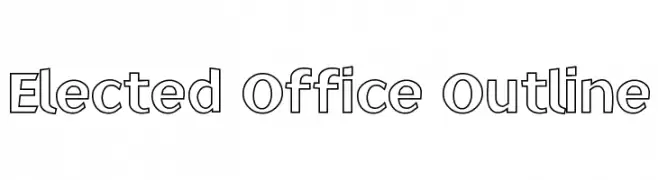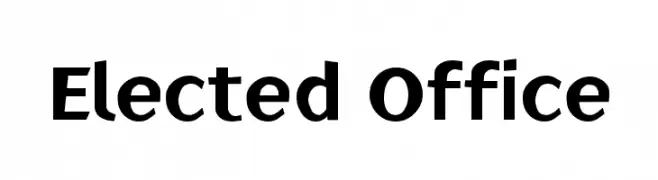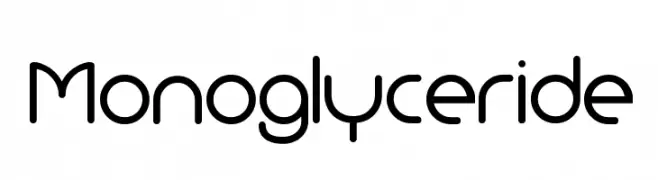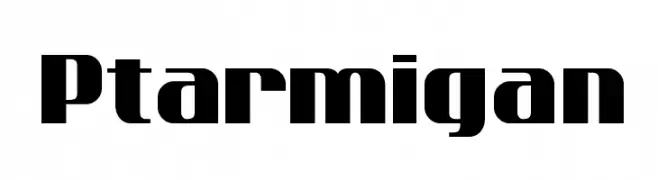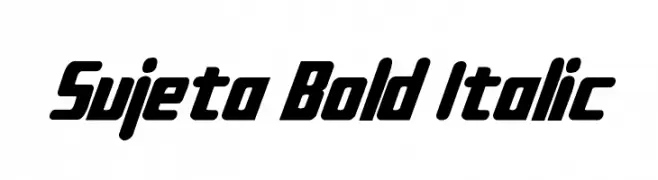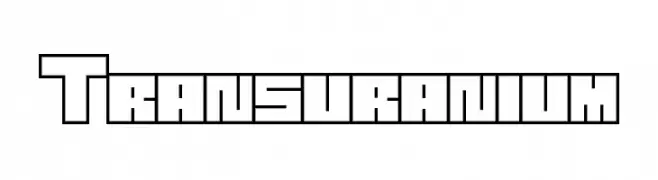
A bold, italic font with a modern and dynamic style.
A bold, modern sans-serif font with a slight italic slant.
A pixelated, retro-style font with a blocky, geometric design.
A modern, outlined font with geometric and clean letterforms.
A bold, angular blackletter-inspired font with a modern twist.
A bold, geometric font ideal for impactful headlines and titles.
A bold, geometric font with a futuristic and industrial design.
A modern, rounded font with smooth curves and a clean, balanced aesthetic.
A bold, rounded font with a modern and playful style.
A modern, geometric font with rounded edges and uniform width.